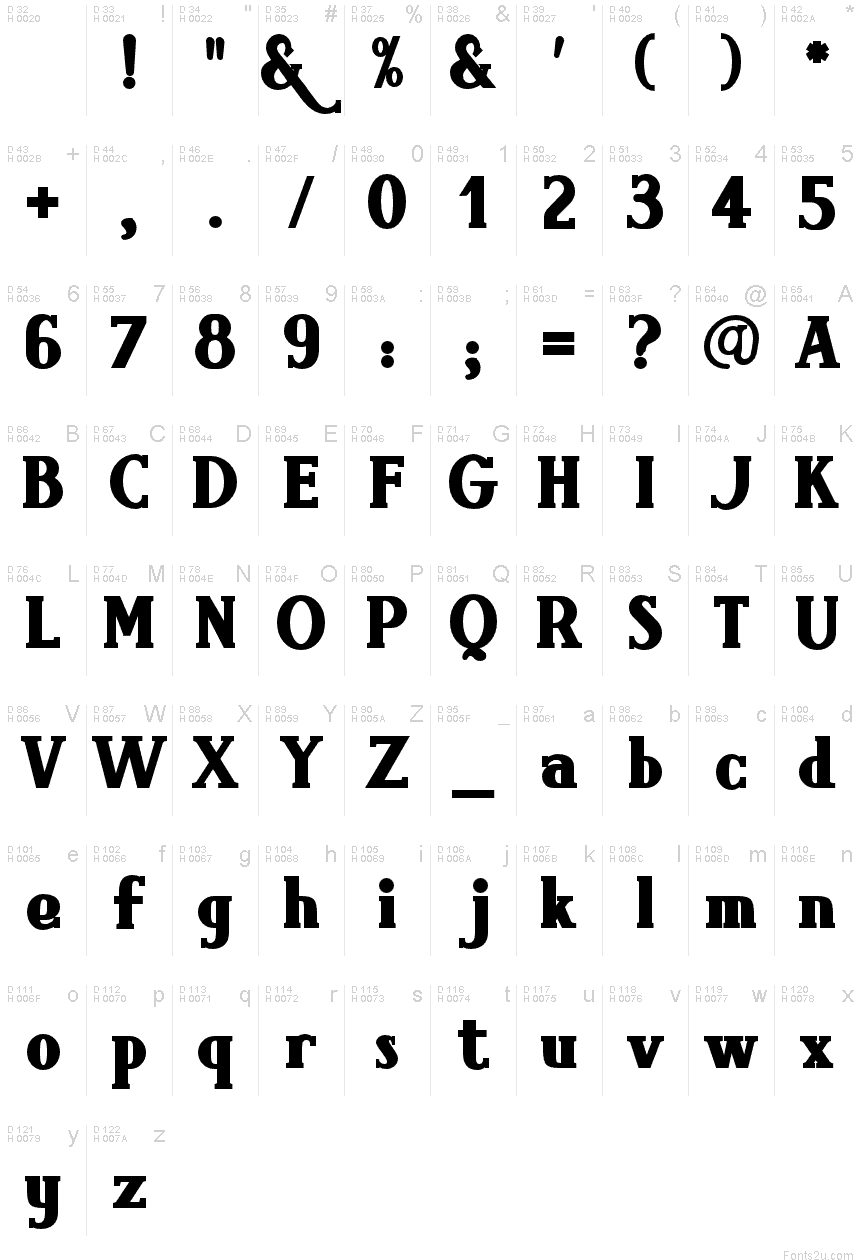
Brimborion Bold is a free heavy serif font with broad capitals and tightly packed lowercase forms. Thick, rounded strokes meet sharp slab-like serifs, and the changing stroke widths give the lettering an emphatic, slightly theatrical silhouette.
Its oversized shapes can echo chunky illustration, cut-paper graphics, or bold geometric patterns on posters and album artwork. That close relationship with imagery also suits festival branding and playful editorial covers, where the letters can become part of an illustrated scene rather than simply providing a caption.